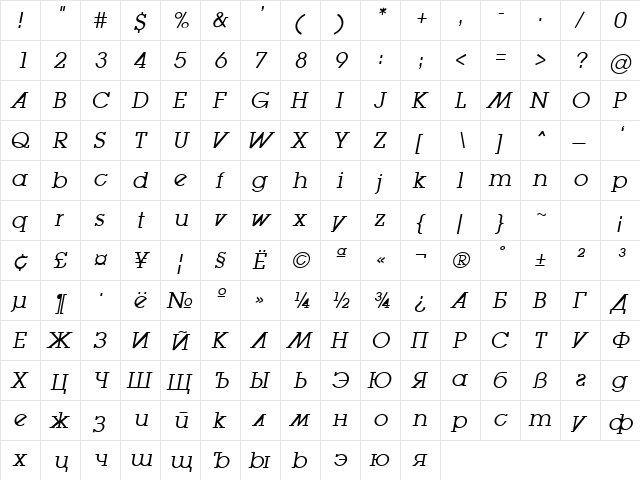
LugaBookAd Book Oblique
Design Context for LugaBookAd Typeface
LugaBookAd takes a measured approach to typography — its balanced proportions and neutral character make it a reliable workhorse for both digital and print work. The slanted form adds forward momentum and visual energy.
Pro Tip: Try LugaBookAd for annotation and caption copy alongside an upright companion — the contrast in angle creates a dynamic but ordered typographic system.